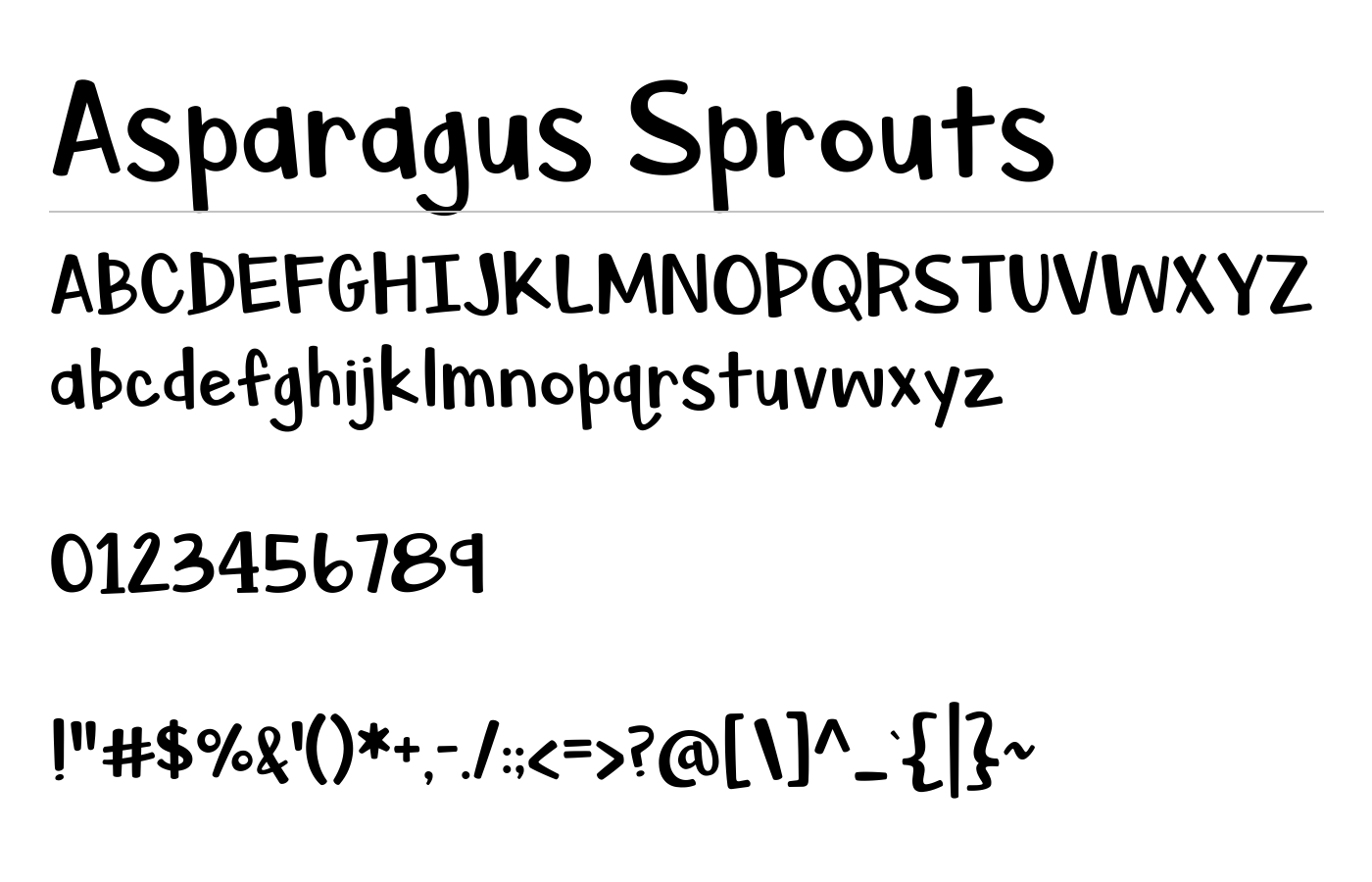
Asparagus Sprouts is a playful and friendly sans serif font with a hand-drawn, casual style that feels approachable and fun. Its upright, slightly irregular letterforms and moderate x-height give it a lively, informal character, making it perfect for use in children's materials, creative projects, or branding that wishes to convey warmth and personality. This font works best in headlines, logos, and packaging where a charming, handcrafted look is desired.
Asparagus Sprouts Font
About Asparagus Sprouts Font
| Designer | Brittney Murphy Design |